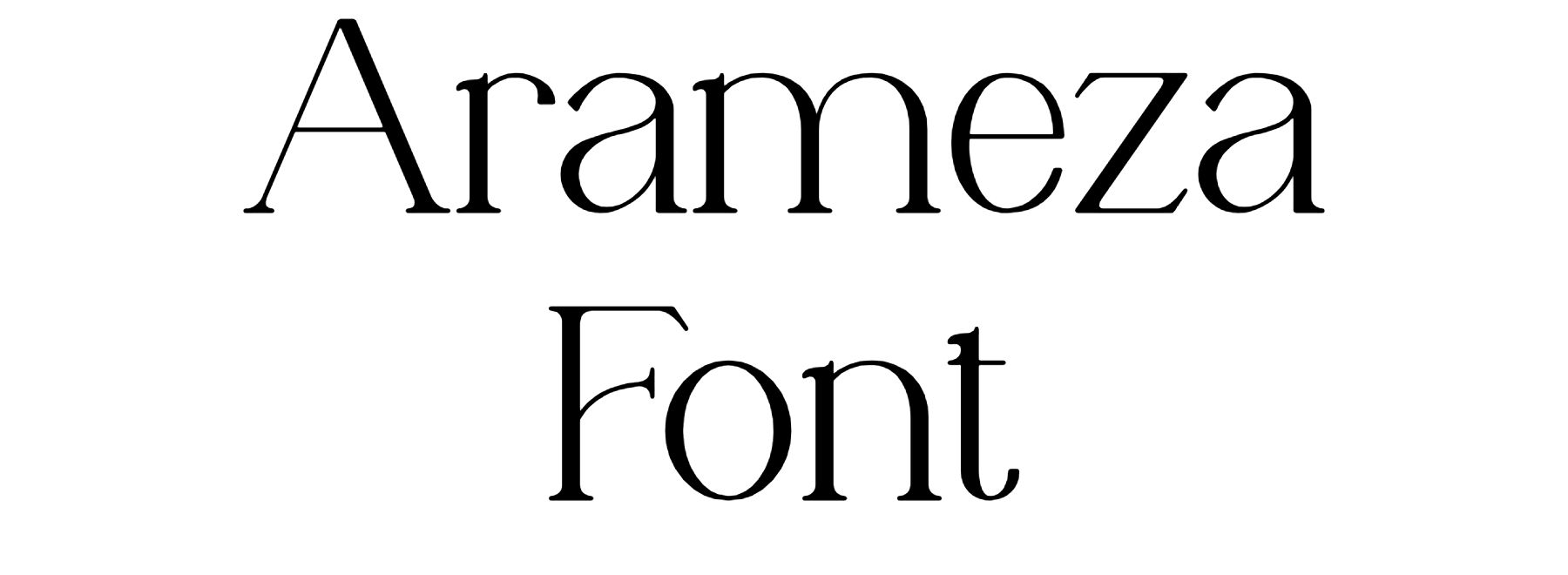
Arameza
Arameza is a serif font created by Irfan Hidayat (2021). It has the traditional, bookish feel of type you see in novels, newspapers and long-established brands. The free download includes two styles, and you can try every one of them with your own text in the preview above.
What You Can Type With Arameza
Arameza covers the full alphabet in upper and lowercase, plus all ten numbers, so you can set names, dates and prices without switching fonts. Common punctuation such as &, !, ? and @ is included as well. It doesn't include accented letters such as é or ñ, which makes it an English-only font.
Where Arameza Works Best
Arameza is a natural fit for book covers, magazine headlines and classic branding. Serif fonts shine in headlines and printed text. For long paragraphs on phones, check that it still reads well at small sizes. Because the family has more than one style, you can mix them in a single design for headings, subheadings and highlights.